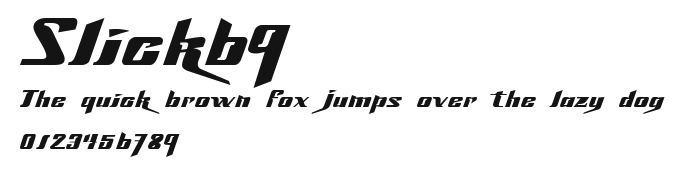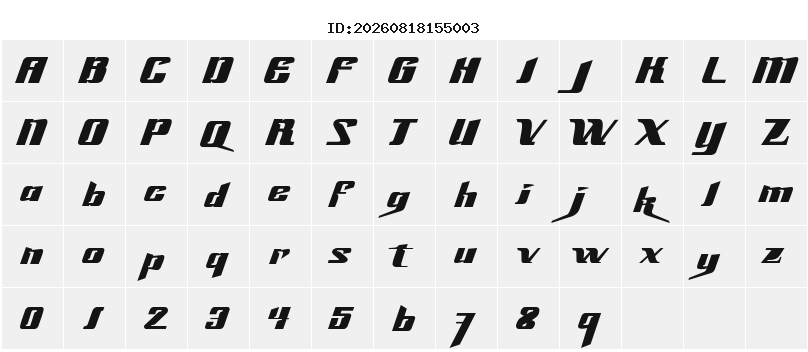
Slick69 Preview
• Font Name: Slick69
• Full Font Name: Slick69
• PostScript Name: Slick69
• Copyright: © Sacred Nipple_1998...font design Clint Vosloo...fonting Brode Vosloo
About Slick69.ttf
Slick69.ttf is a modern, elegant sans-serif font designed for ultimate readability and visual harmony. Perfect for branding, headlines, web design, and print materials.